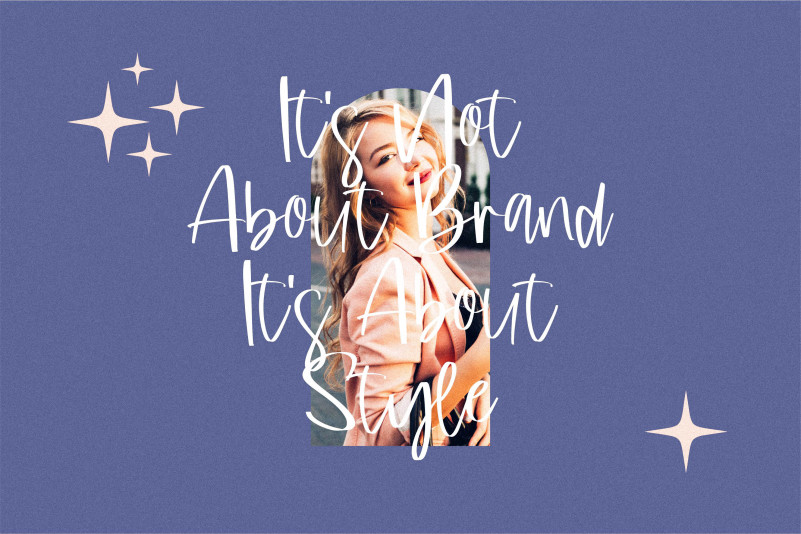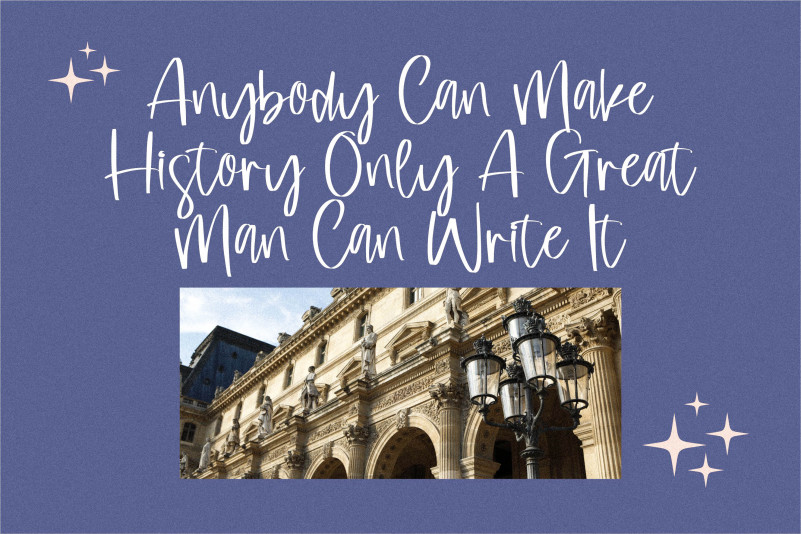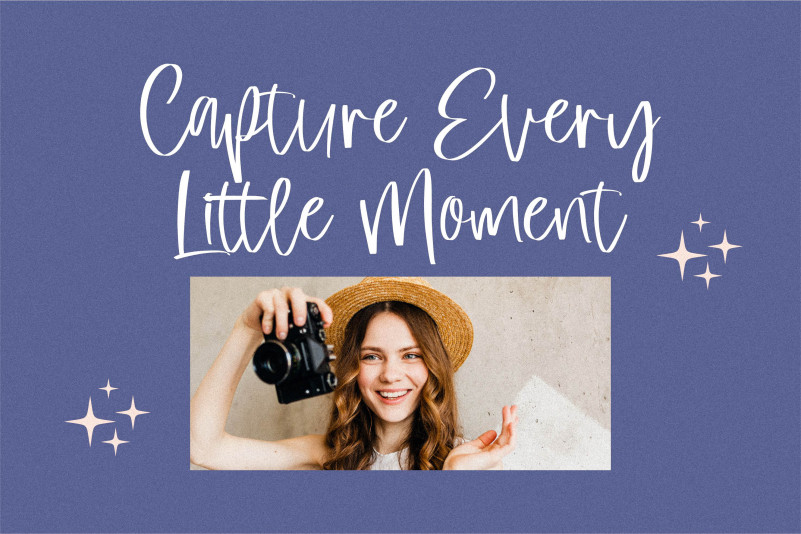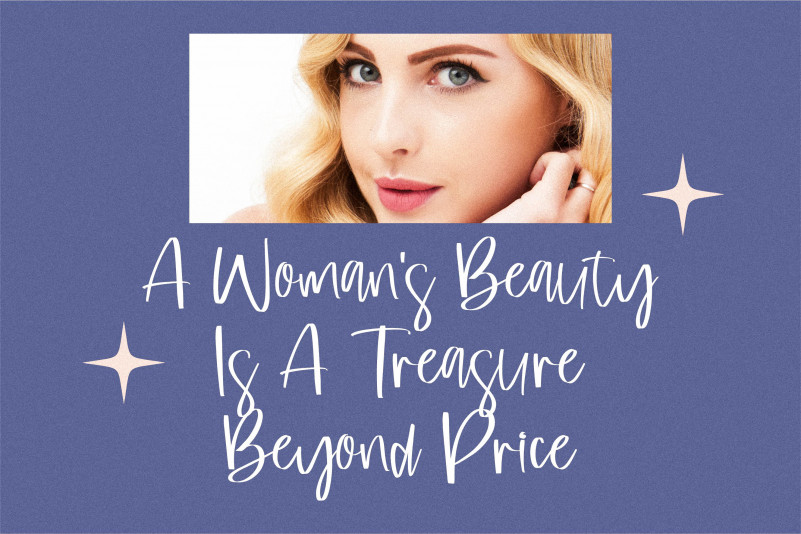
Loving Paris Font
Loving Paris Script Font
This is a lovely and delicate script font that exudes elegance and class. This font was particularly crafted for those who need a beautiful and refreshing look to their designs.